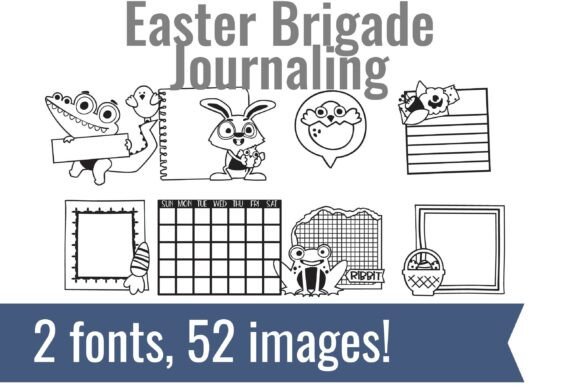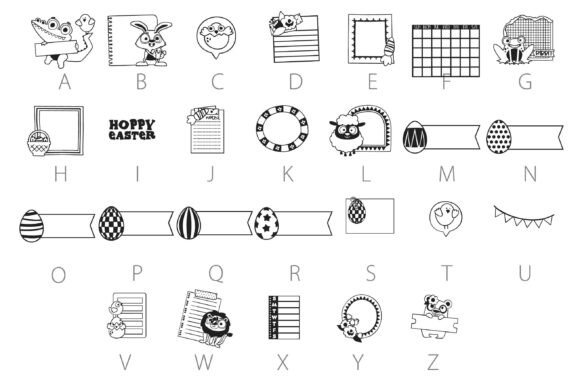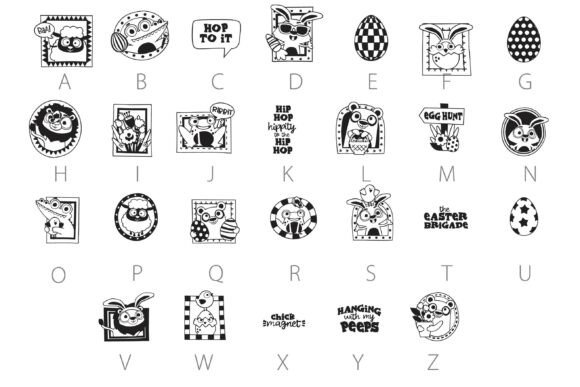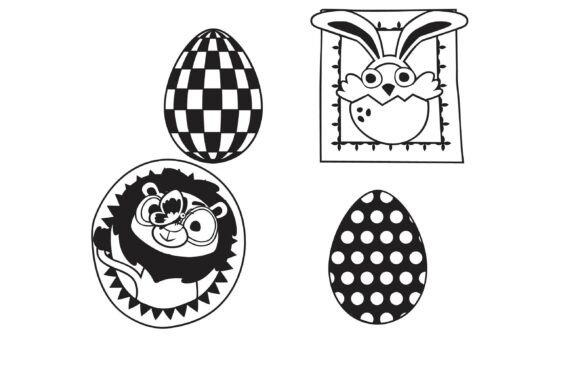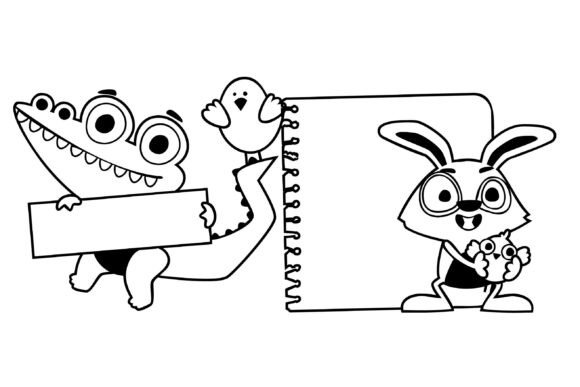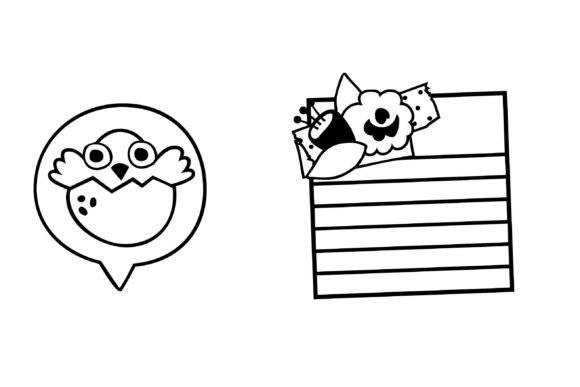
Hop into Creativity with Easter Brigade Dingbats Font
Ah, Easter – a time of renewal, springtime joy, and, let’s be honest, a designer’s delight! As I sat at my desk, sipping coffee and staring at a blank canvas, I realized I needed something special for an Easter-themed project. That’s when I stumbled upon the Easter Brigade Fonts & Illustrations Bundle. 🐰
It was love at first sight! This comprehensive bundle packs a punch of personality, featuring 2 playful fonts and 52 high-quality line-art illustrations. From “cool” bunnies in sunglasses to decorative eggs and a variety of animal friends, this set is perfect for creating DIY Easter cards, custom apparel, classroom decorations, and festive stickers.
- ✨ Variety and Versatility: The bundle includes 2 unique fonts and 52 illustrations, offering endless creative possibilities.
- ✅ High-Quality Illustrations: Each illustration is meticulously designed, making them perfect for both digital and print projects.
- ⚠️ Occasional Overuse: With so many fun illustrations and fonts, there’s a risk of overusing them in a single project, which can make the design look cluttered.
The Designer Inspiration Behind Easter Brigade
The Easter Brigade Fonts & Illustrations Bundle was created with the goal of bringing joy and whimsy to designers, crafters, and creative hobbyists during the Easter season. The designer aimed to craft a collection that would not only be fun but also versatile and easy to use across various platforms.